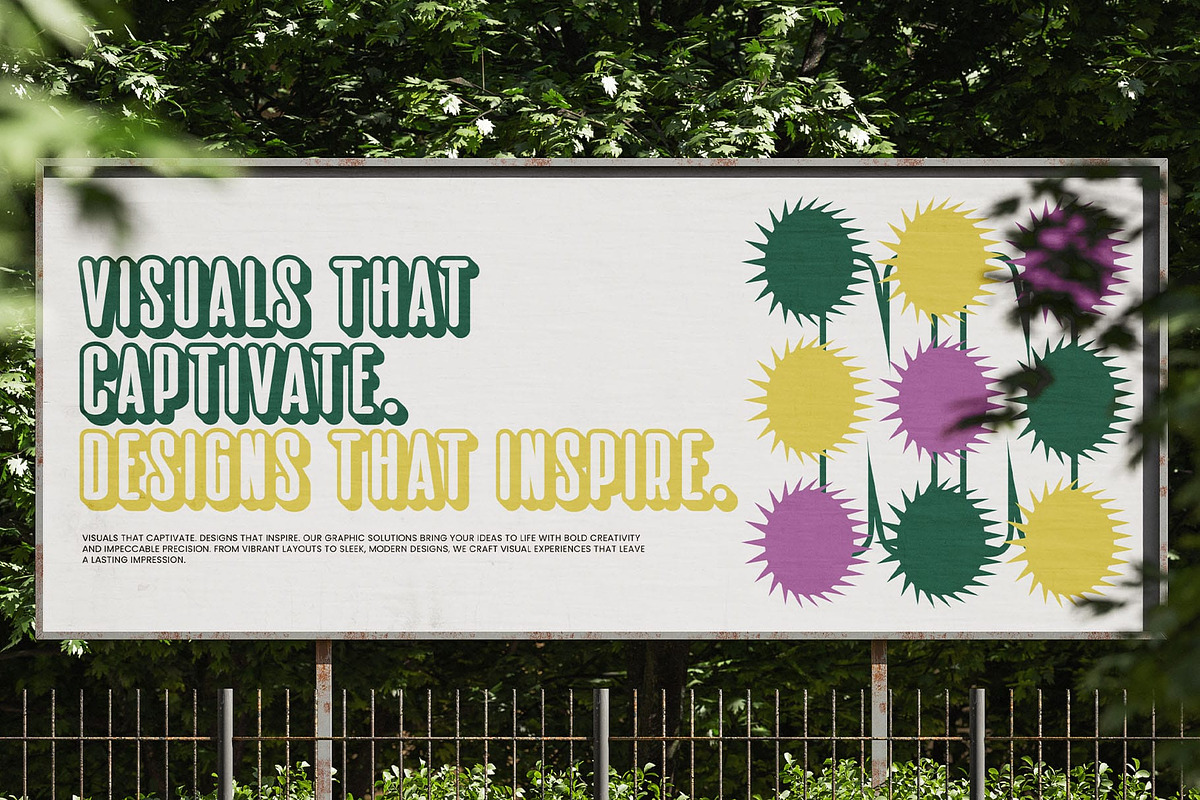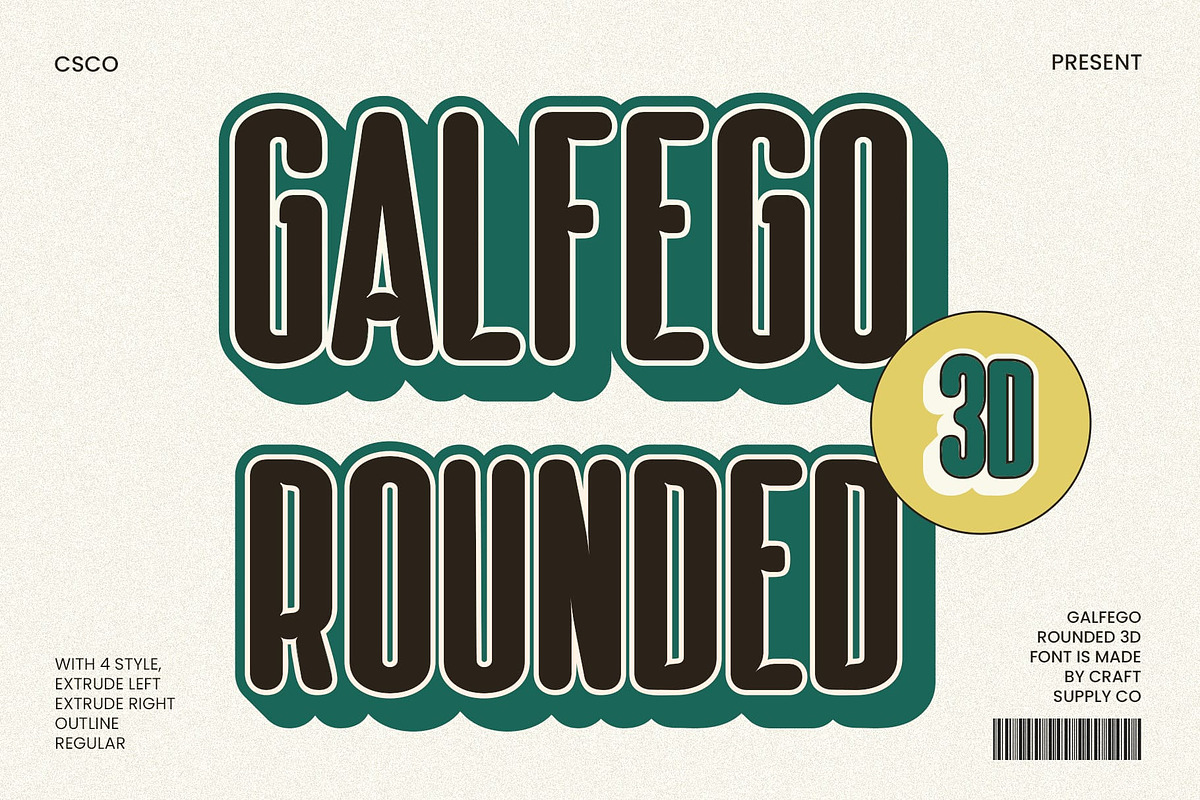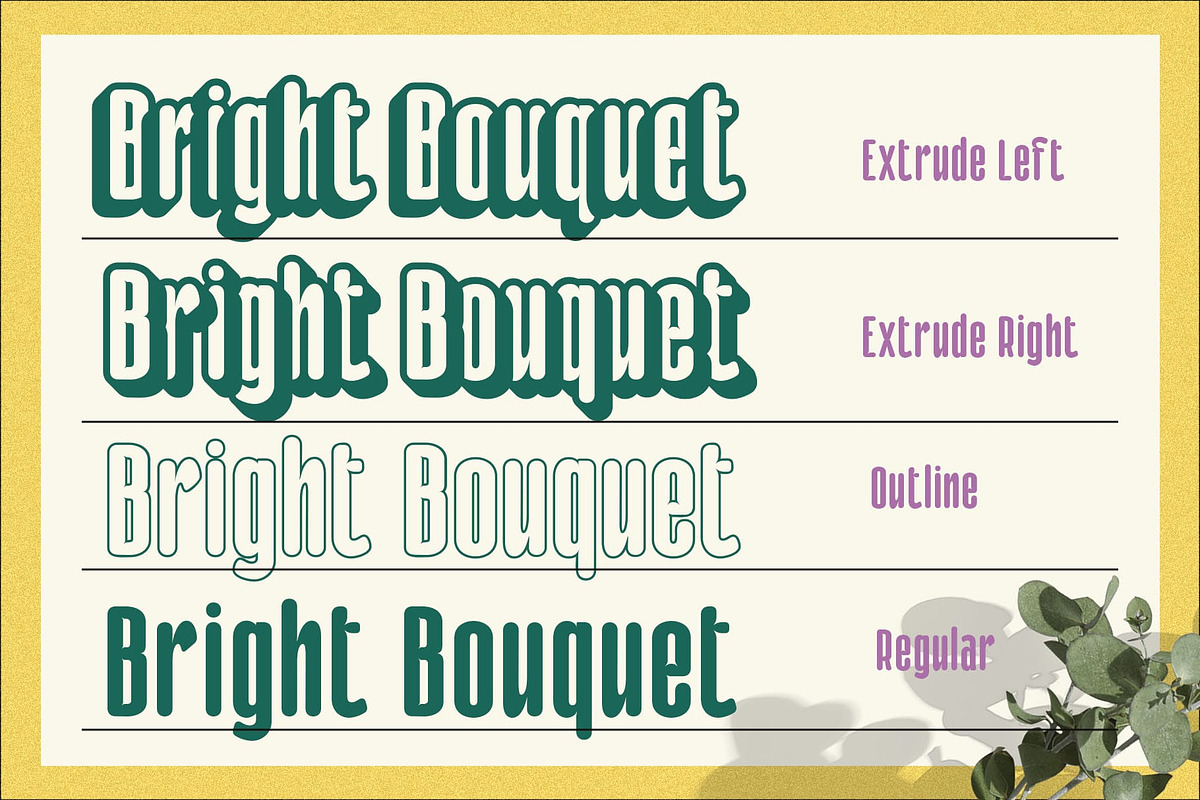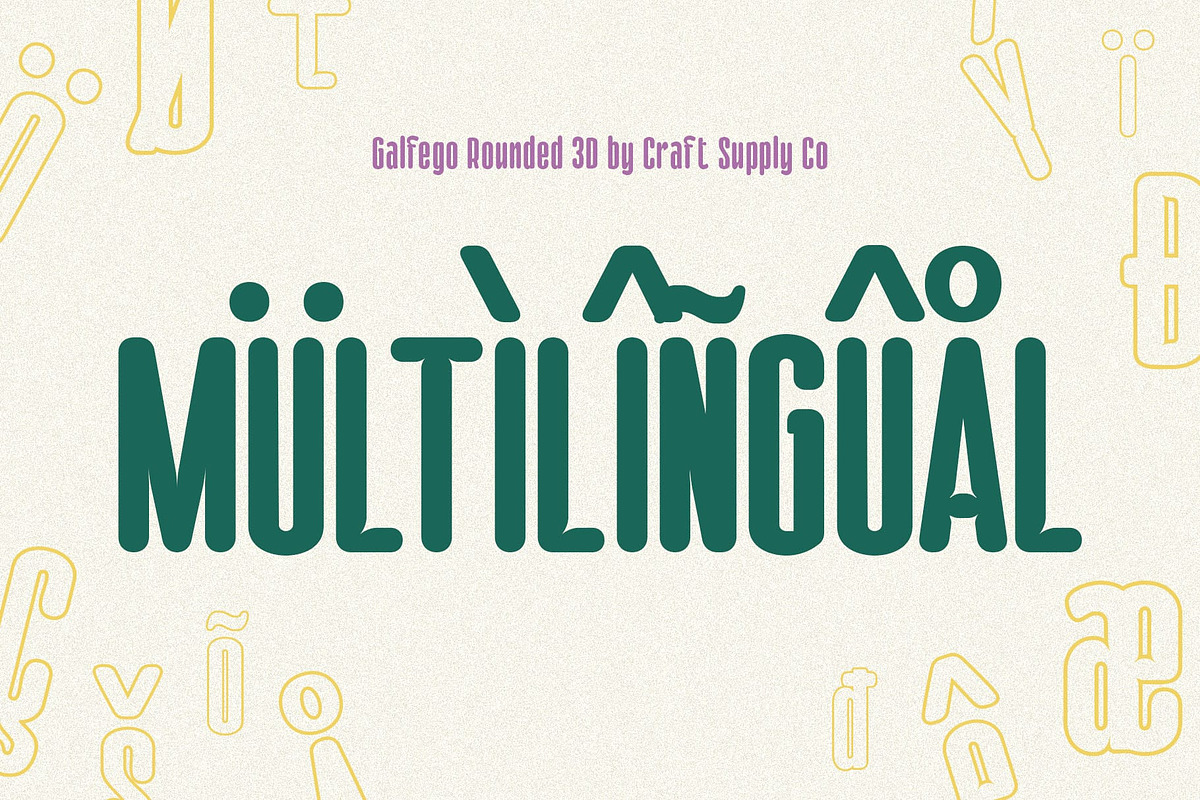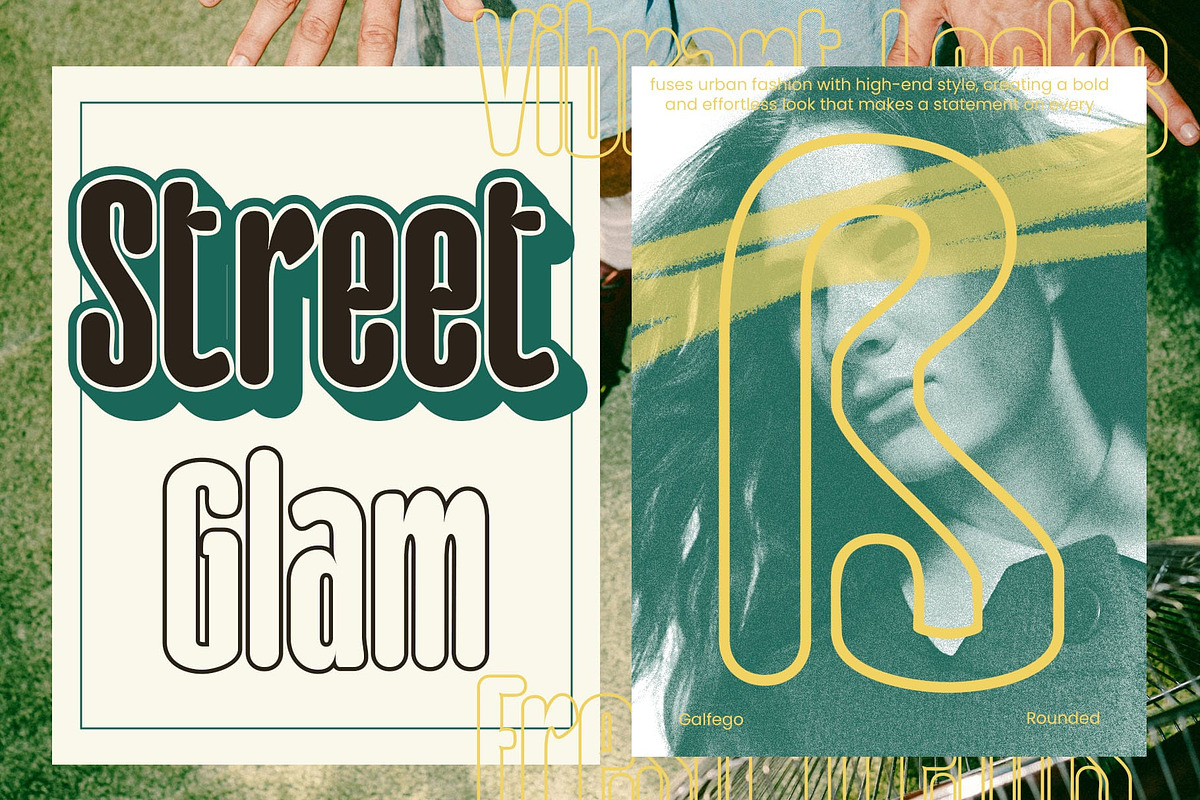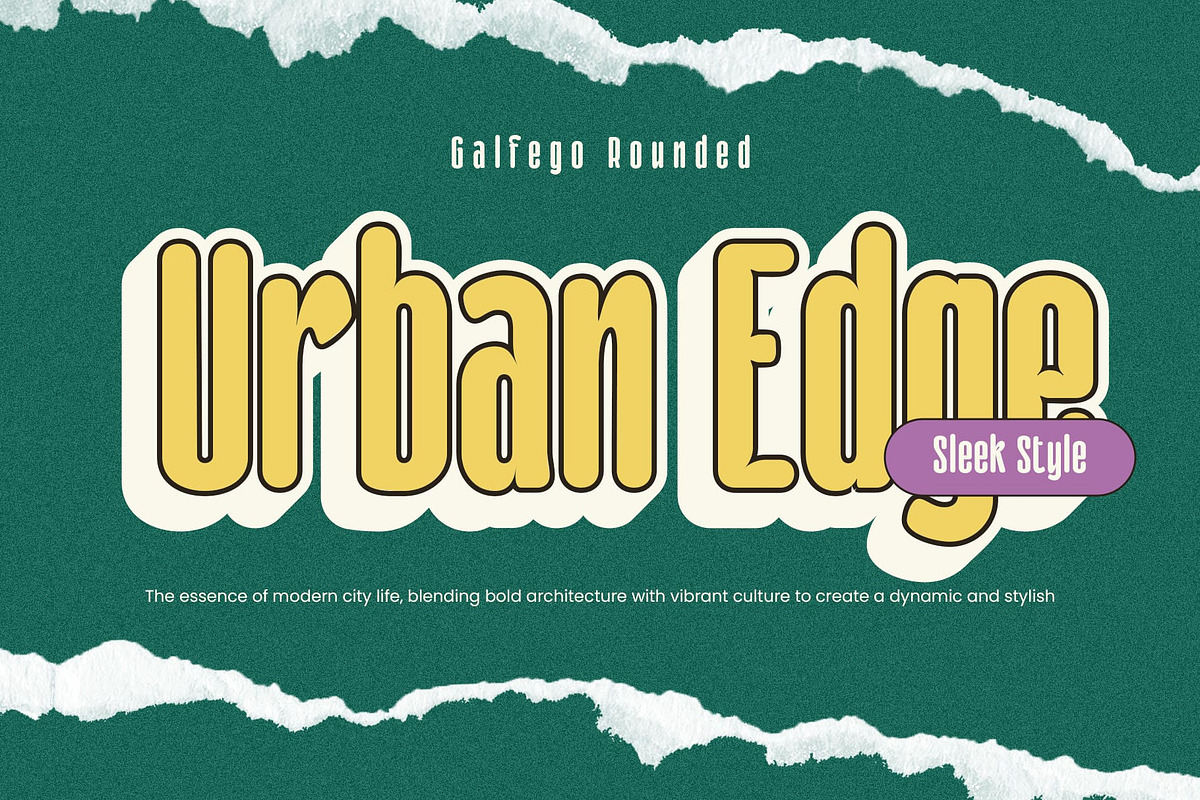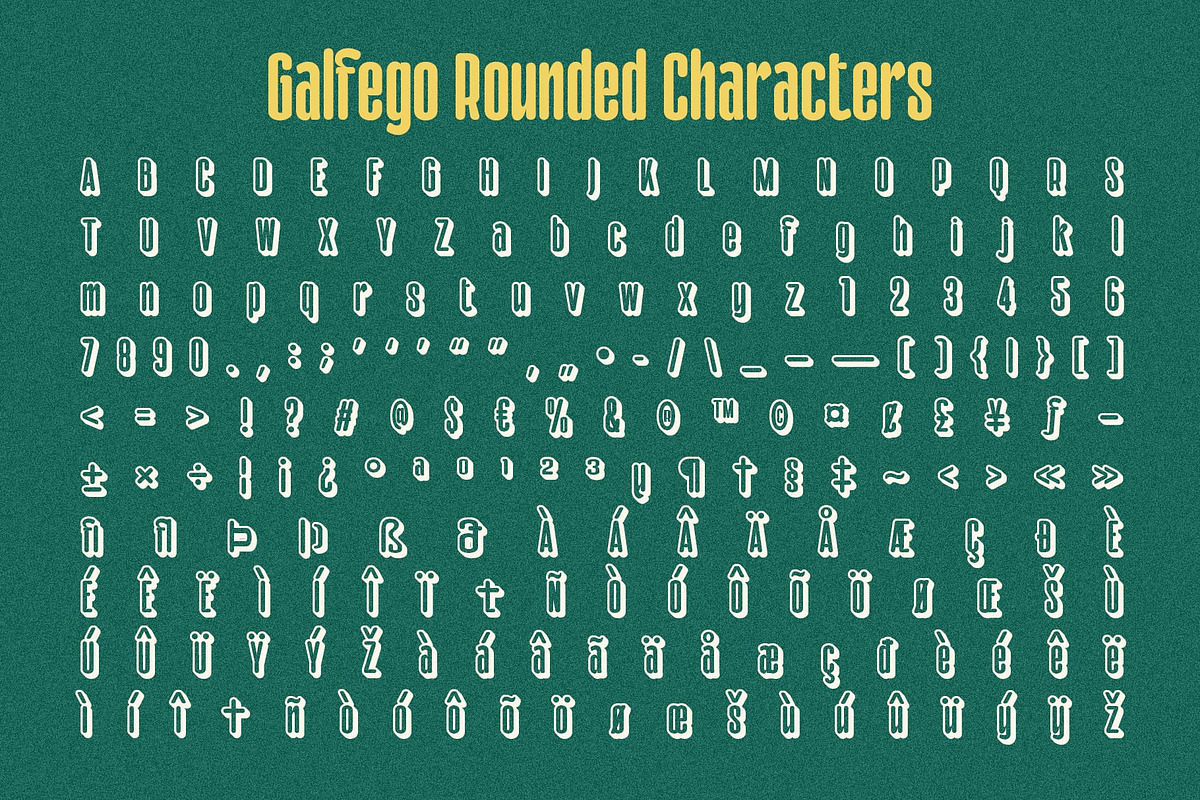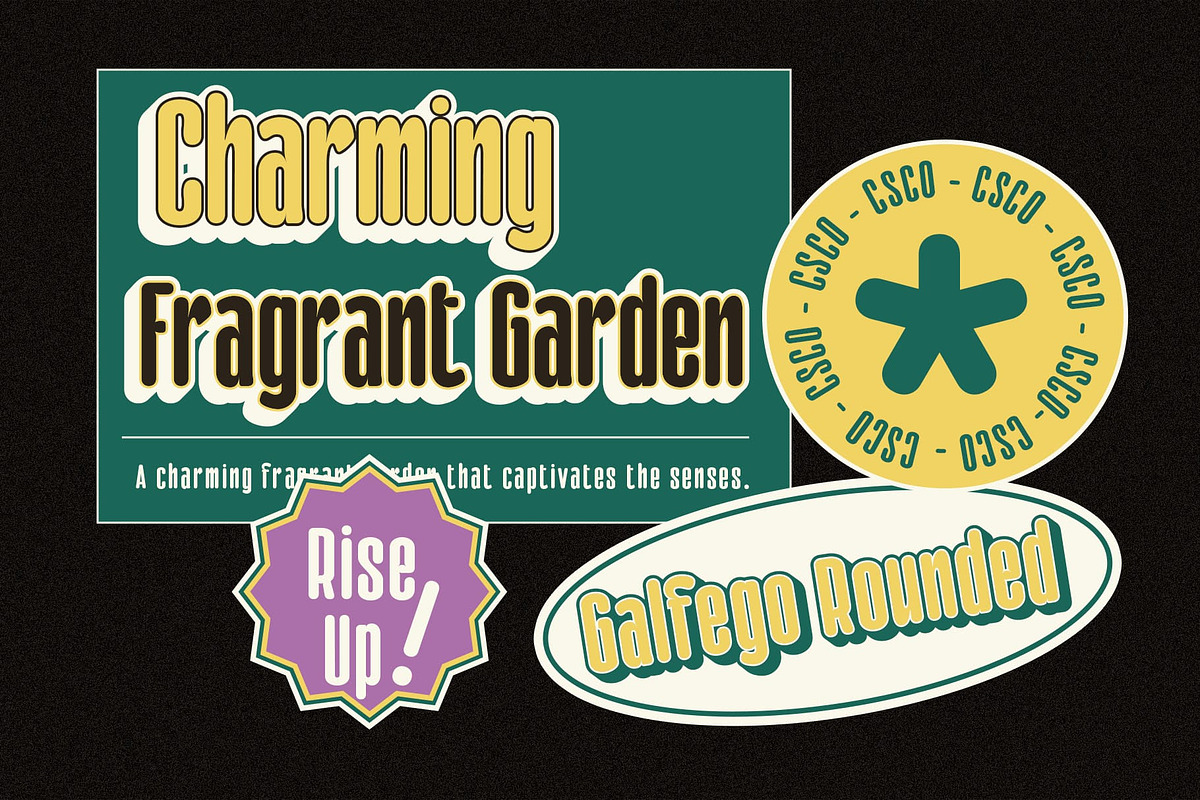
Galfego Rounded 3D
Galfego Rounded 3D: A Modern Sans-Serif Font with Depth and Style
Condensed and Geometric Design Galfego Rounded 3D is a modern sans-serif font designed with a condensed, geometric structure that combines strength and sophistication. Its rounded edges soften the bold and compact letterforms, creating a design that balances precision with approachability. This unique blend ensures high readability while maintaining a sleek, contemporary aesthetic that appeals to a wide range of design needs.
Striking 3D Effect for Dynamic Visuals The addition of a 3D effect brings Galfego Rounded 3D to life, adding depth and dimension to your designs. This feature makes the font perfect for creating standout visuals that command attention in both print and digital media.
Ideal for Futuristic and Contemporary Projects With its sleek design and dynamic 3D styling, this font is ideal for bold branding, cutting-edge advertising, and futuristic visuals. Its modern appeal aligns perfectly with innovative and tech-focused themes.
Versatile and Engaging Whether used in logos, posters, or web graphics, this modern font adapts seamlessly to various applications. Its unique combination of rounded geometry and a 3D effect ensures a captivating and professional look, making it a versatile choice for creative and contemporary projects.
- Galfego Rounded Regular
- Galfego Rounded Outline
- Galfego Rounded Extrude Right
- Galfego Rounded Extrude Left